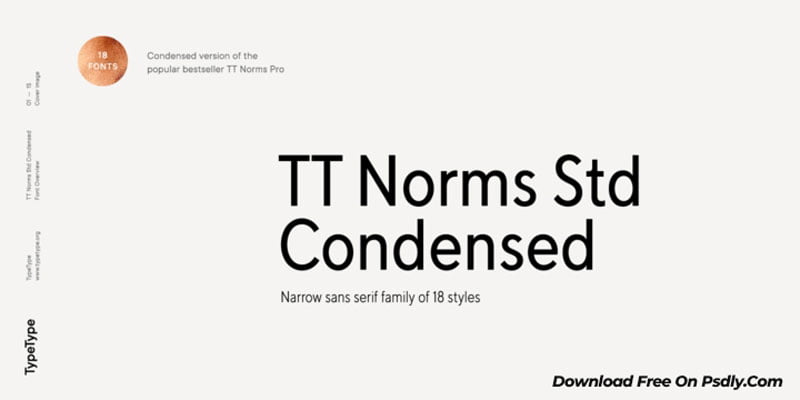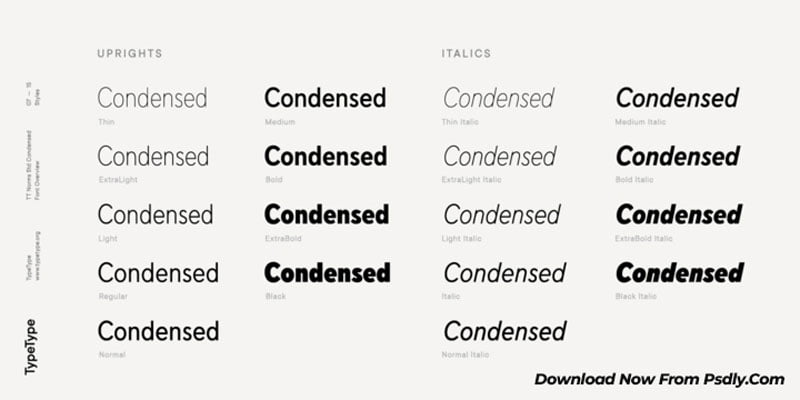
TT Norms Std Condensed Font Family
TT Norms Std Condensed is the logical development of our bestselling TT Norms. Since the release of TT Norms, we received a bunch of requests to create its narrow version and even managed to make several custom projects of the narrow TT Norms before we decided to start creating a full-fledged commercial version of the typeface.
At the very beginning of the project, we did some research and tested several options for the possible width of the typeface. Despite the fact that TT Norms Std Condensed has narrower proportions than the original family, it inherited the classic proportions of characters, attention to detail, and meticulous elaboration of each character in the typeface.
The TT Norms Std Condensed font family consists of 18 faces (9 upright and 9 italics). Each style includes a sufficient set of characters that allow you to solve most of the problems that arise in the field of graphic design, branding, packaging design, or website design.